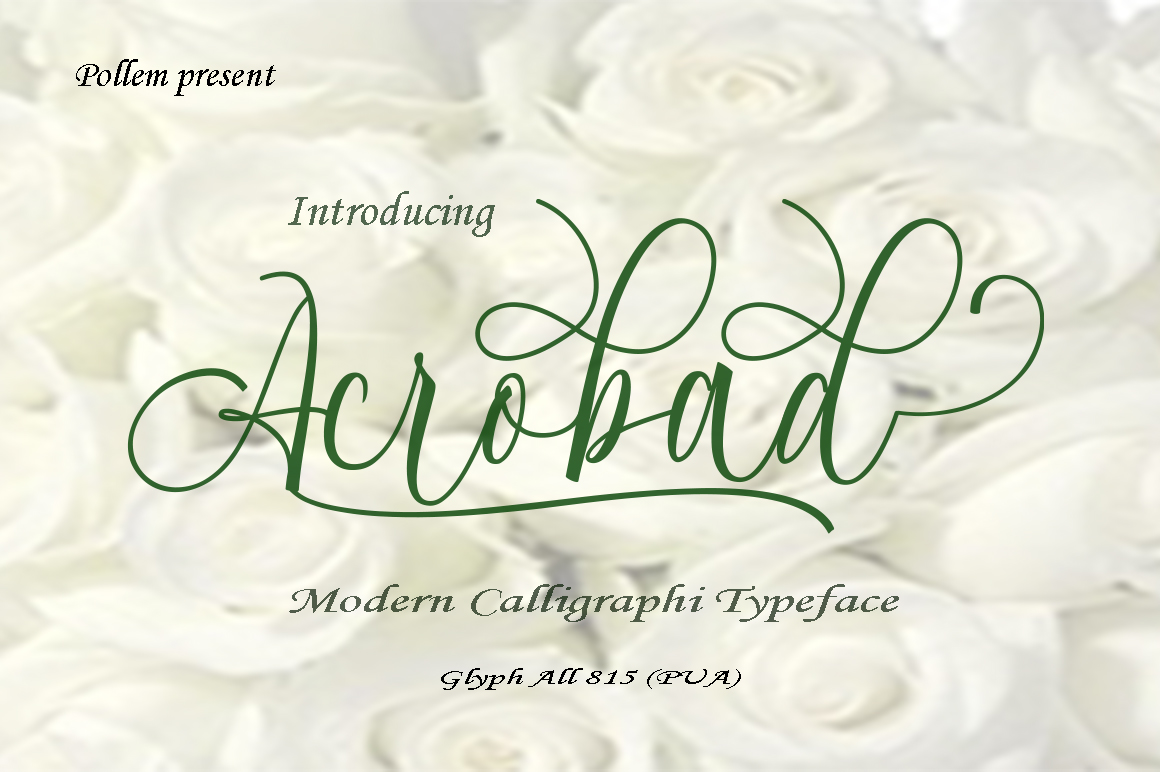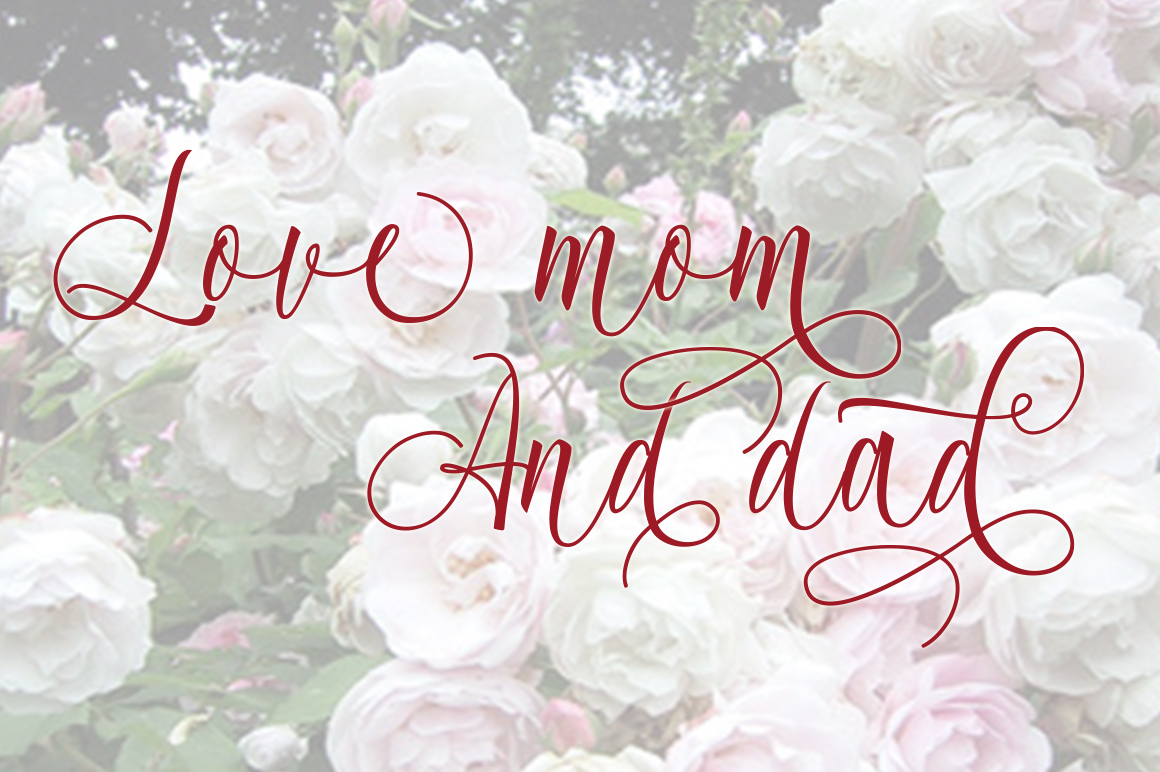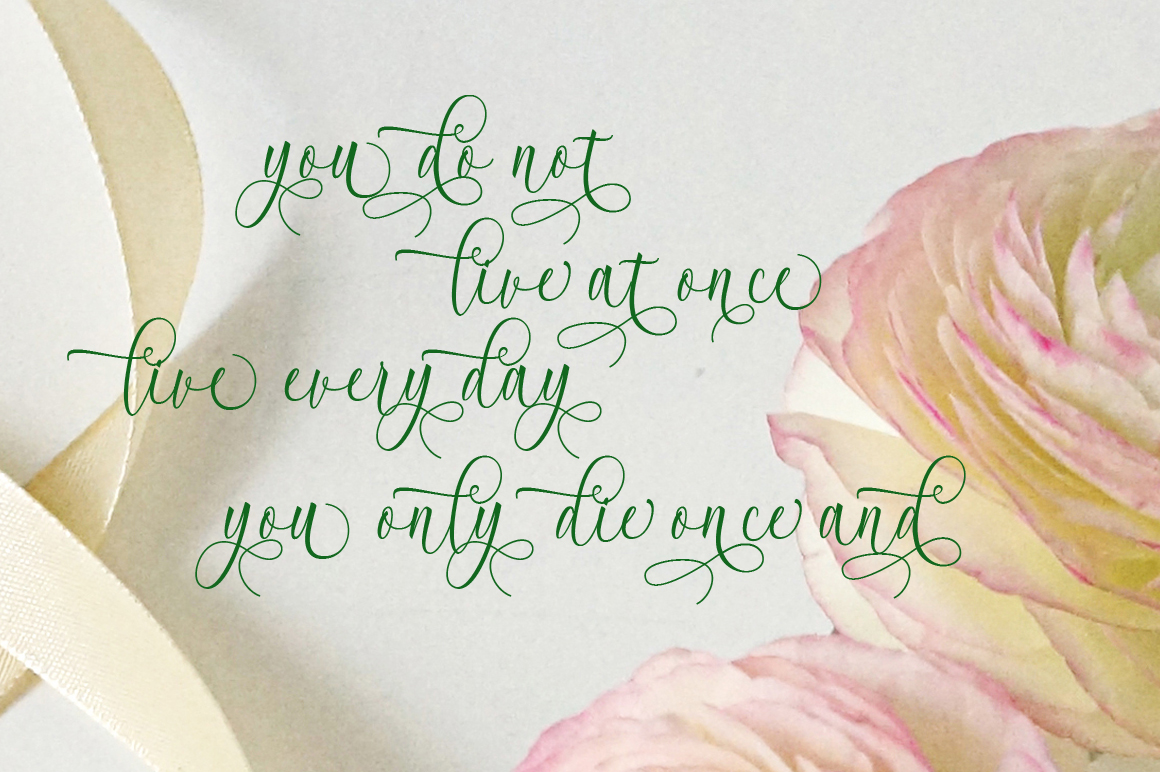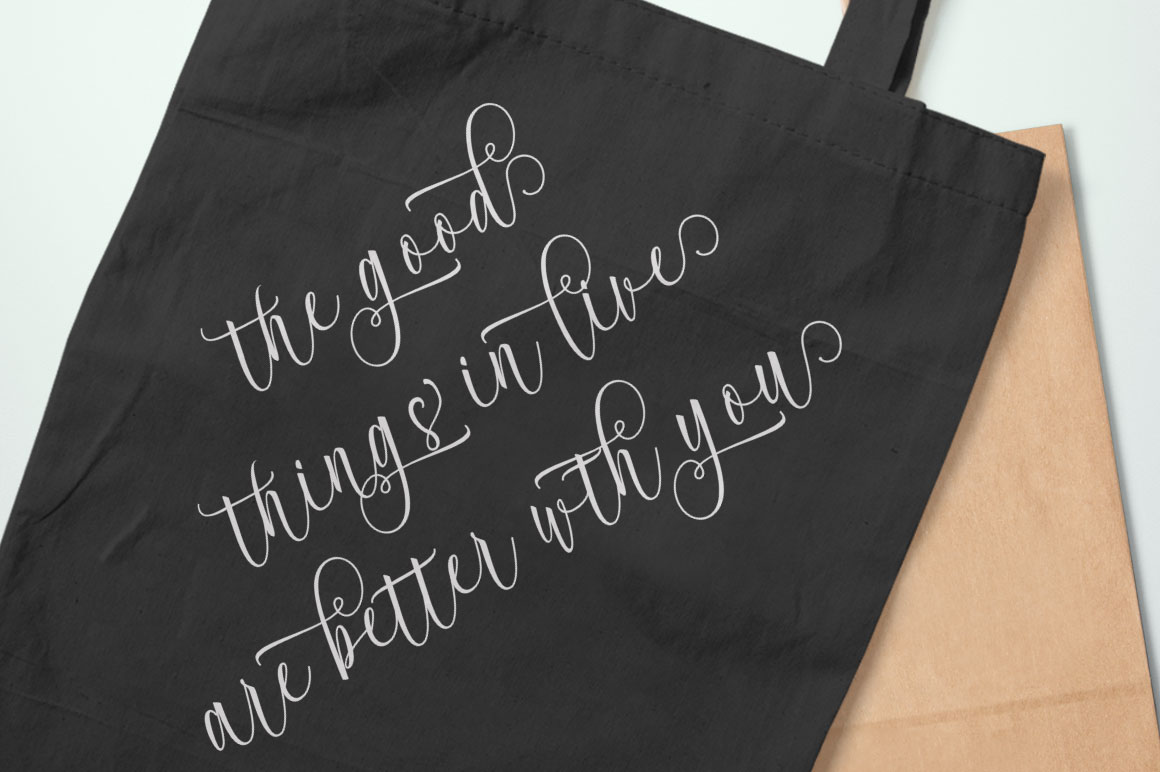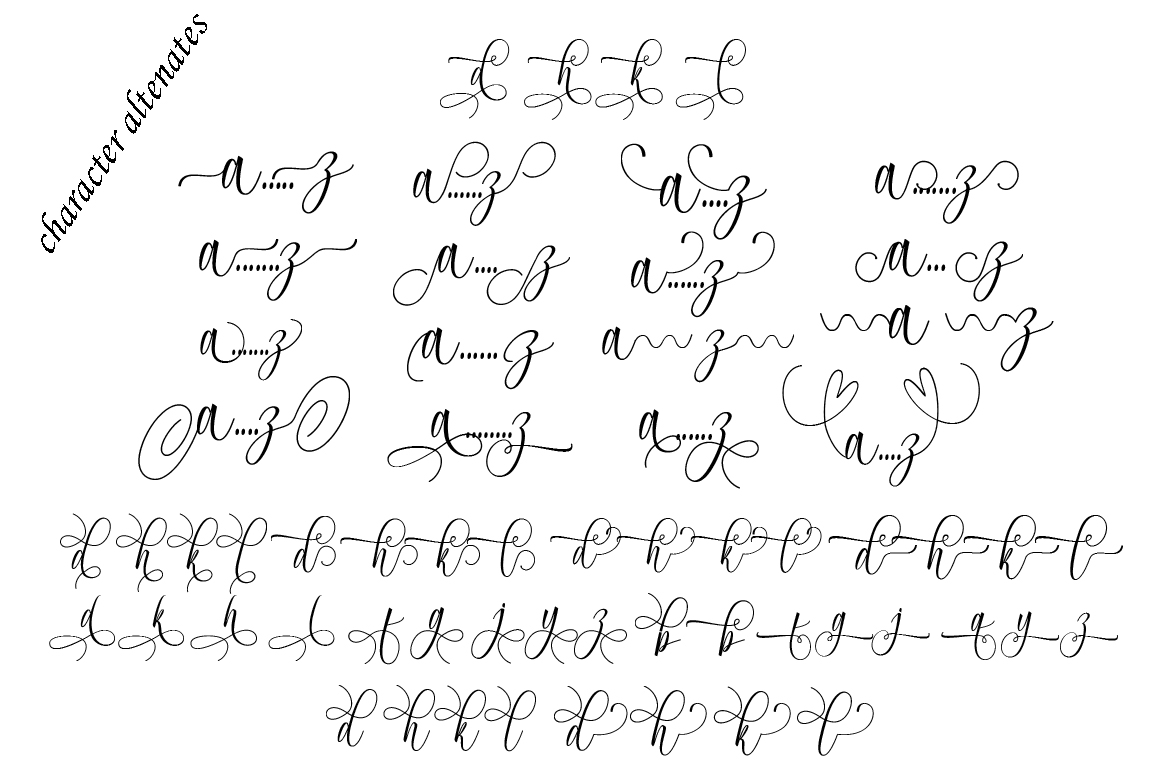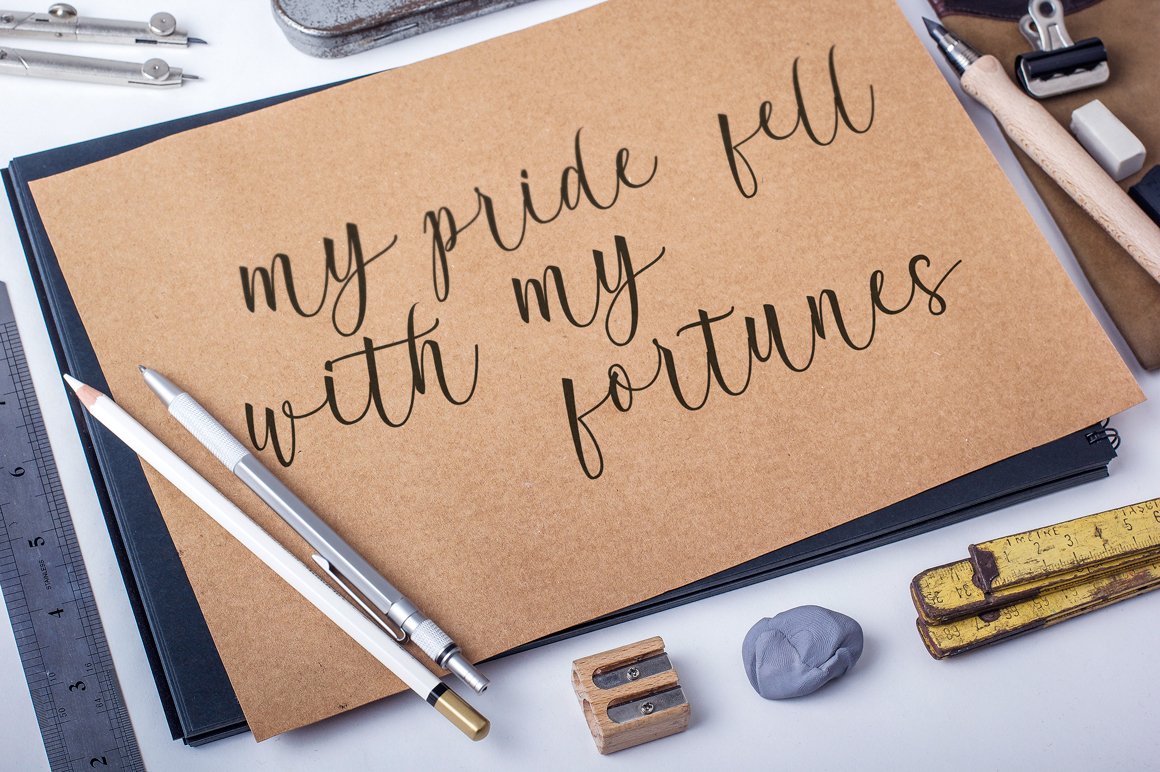
Acrobad Font
About Acrobad Font
Acrobad is a handwritten script font created by Polem. Packed with more than 815 unique glyphs featuring 591 alternate characters.